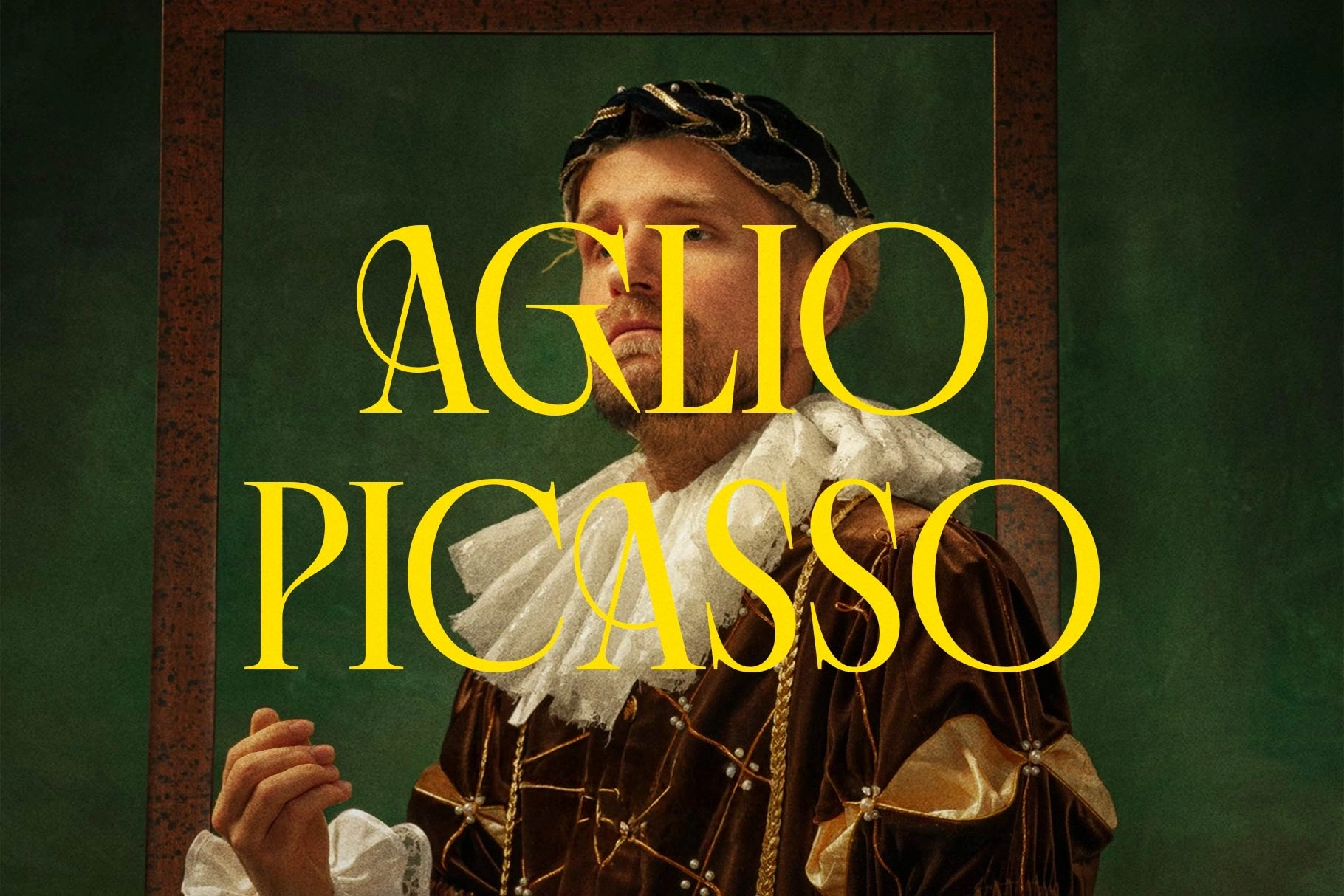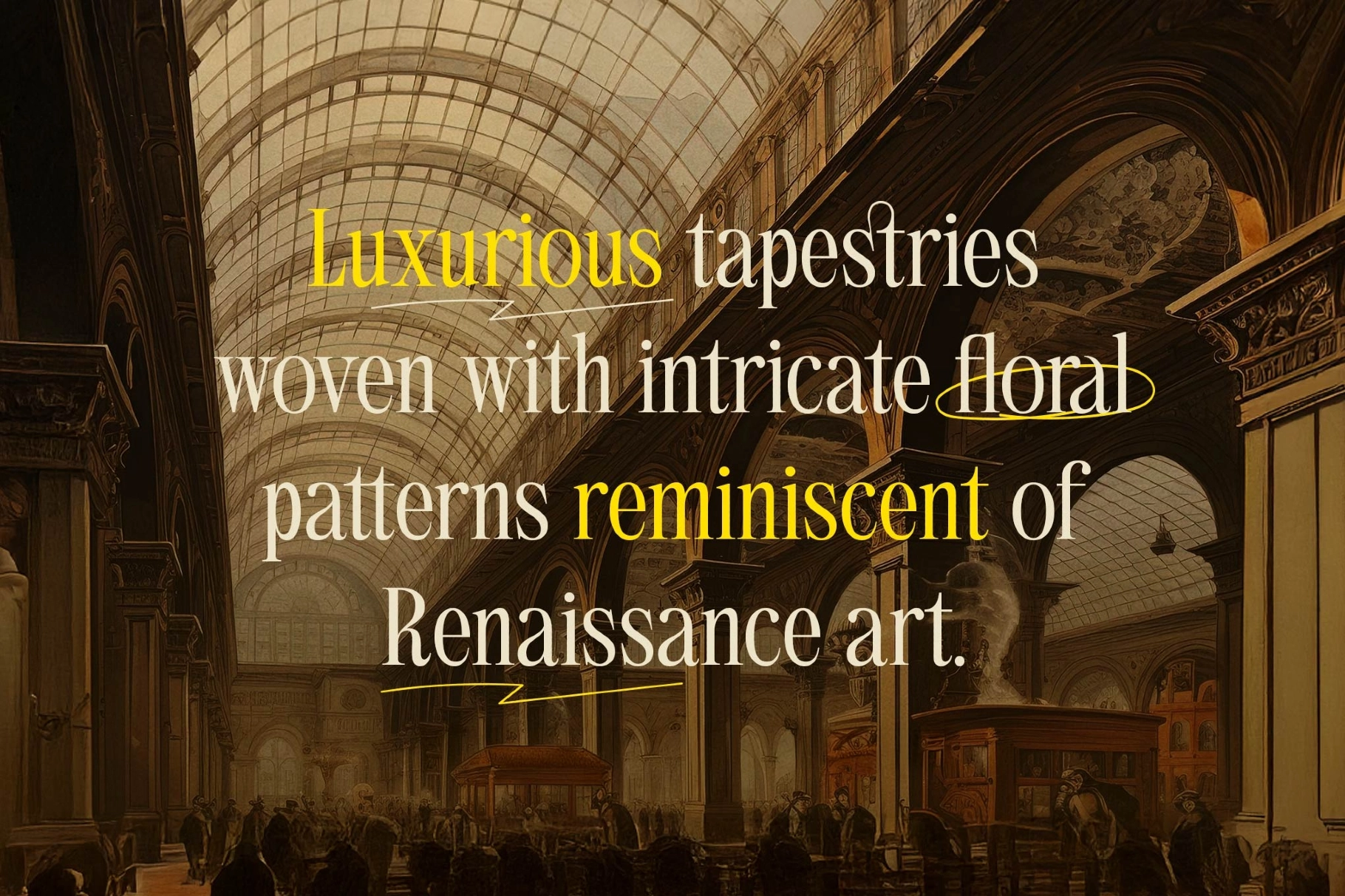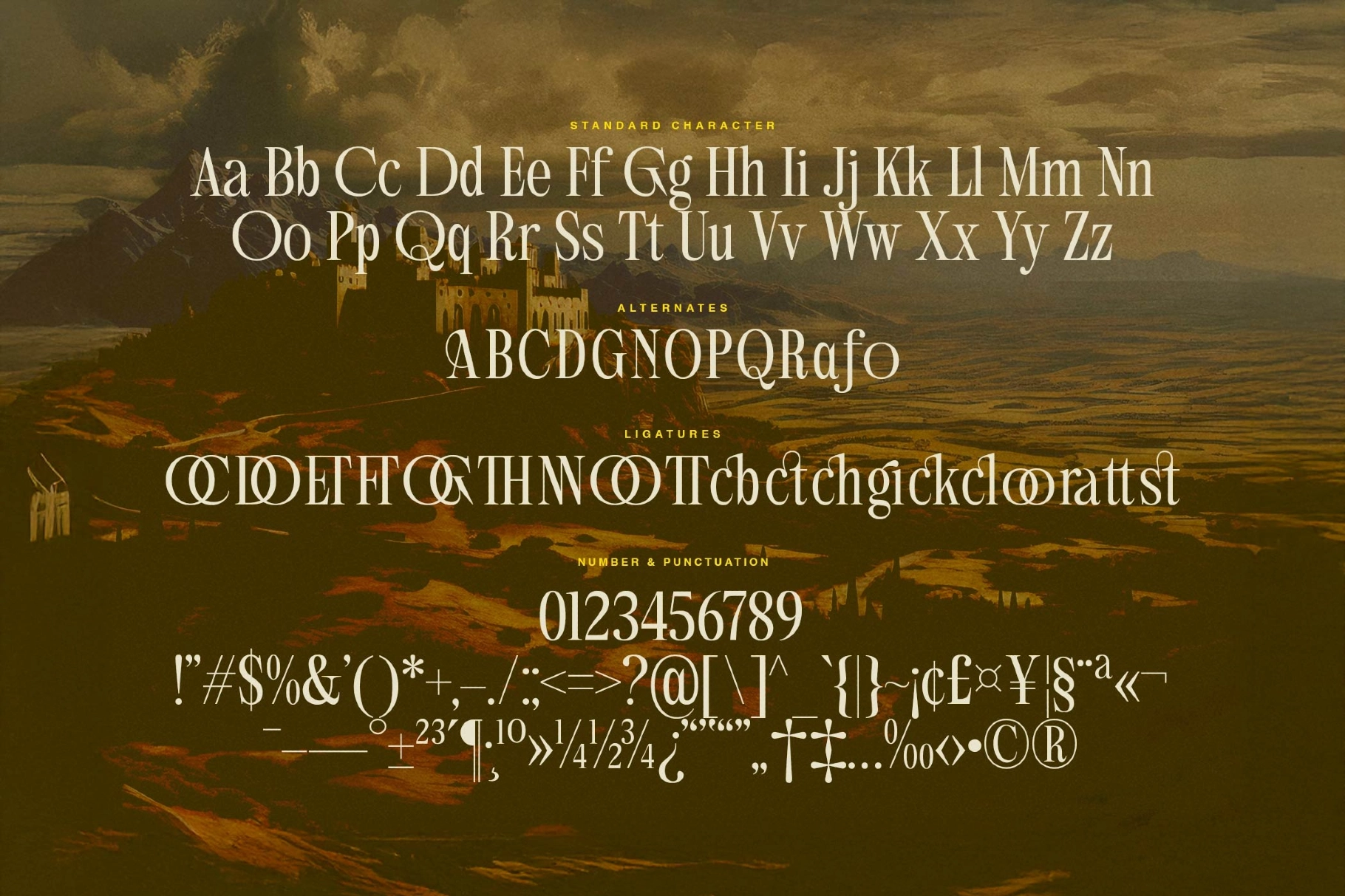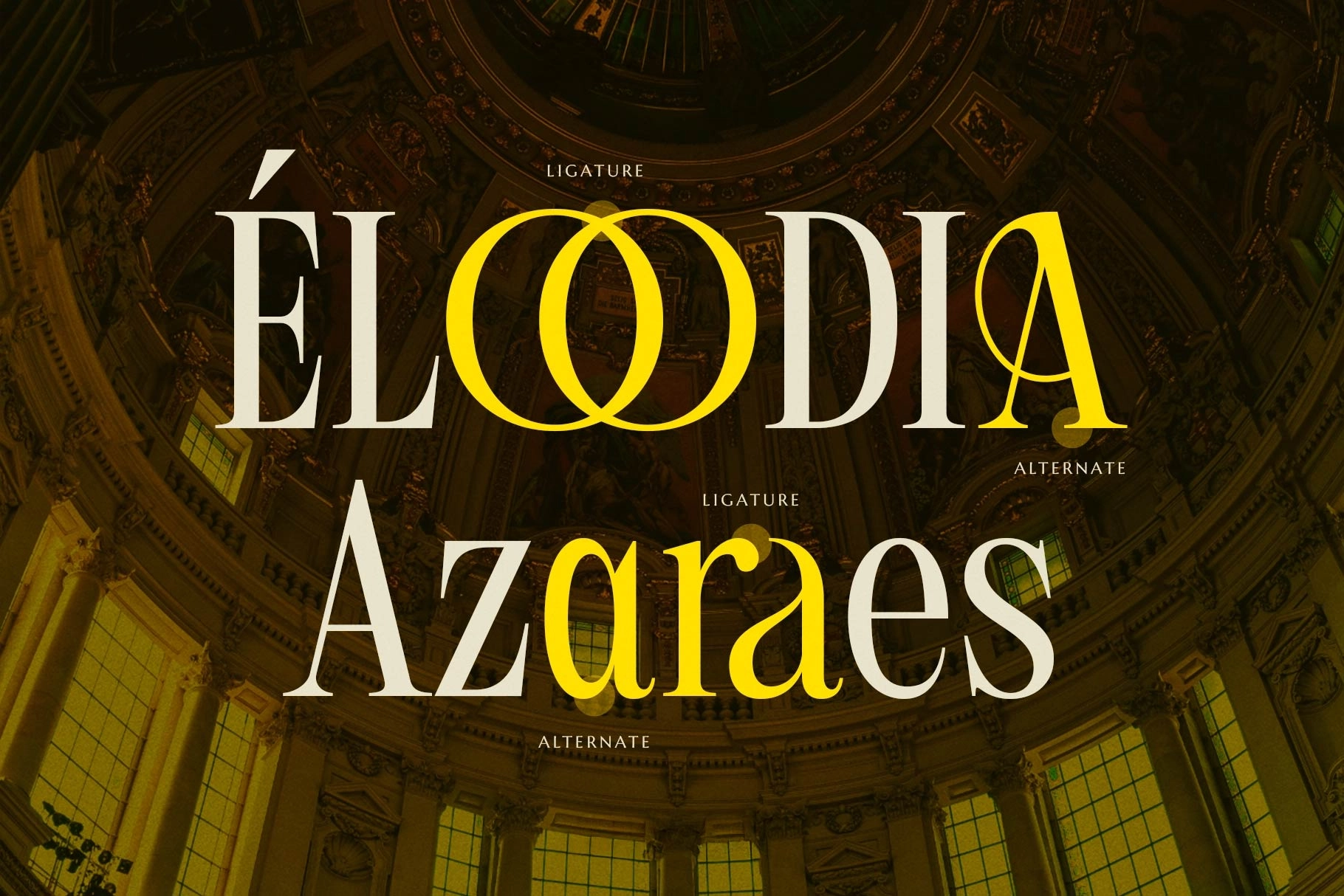
Aglio Picasso - Vintage Serif Display Font
Aglio Picasso
Aglio Picasso pulls its gravity from Renaissance portraiture and old engraved title pages, folding that weight into a vintage serif font built for display sizes. High-contrast strokes, curling stylistic alternates, and a dense ligature set give the letterforms the theatrical polish of hand-set type pulled from a centuries-old print shop.
- uppercase & lowercase;
- numerals, punctuation & symbols;
- stylistic alternates & a dedicated stylistic set;
- standard & discretionary ligatures;
- case-sensitive forms, fractions, ordinals & superior numerals;
- multilingual support;
- 459 glyphs total